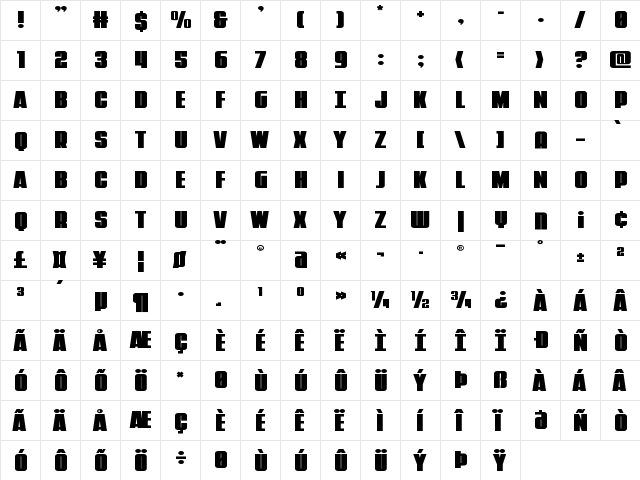
Punch Expanded Regular
Design Context for Punch Expanded Typeface
Punch Expanded is a composed and adaptable typeface that performs quietly and consistently across a wide range of design contexts.